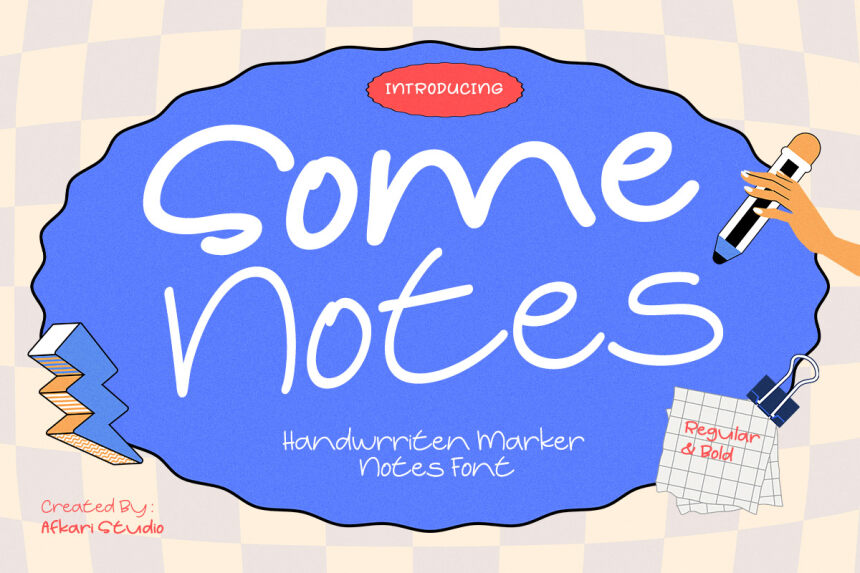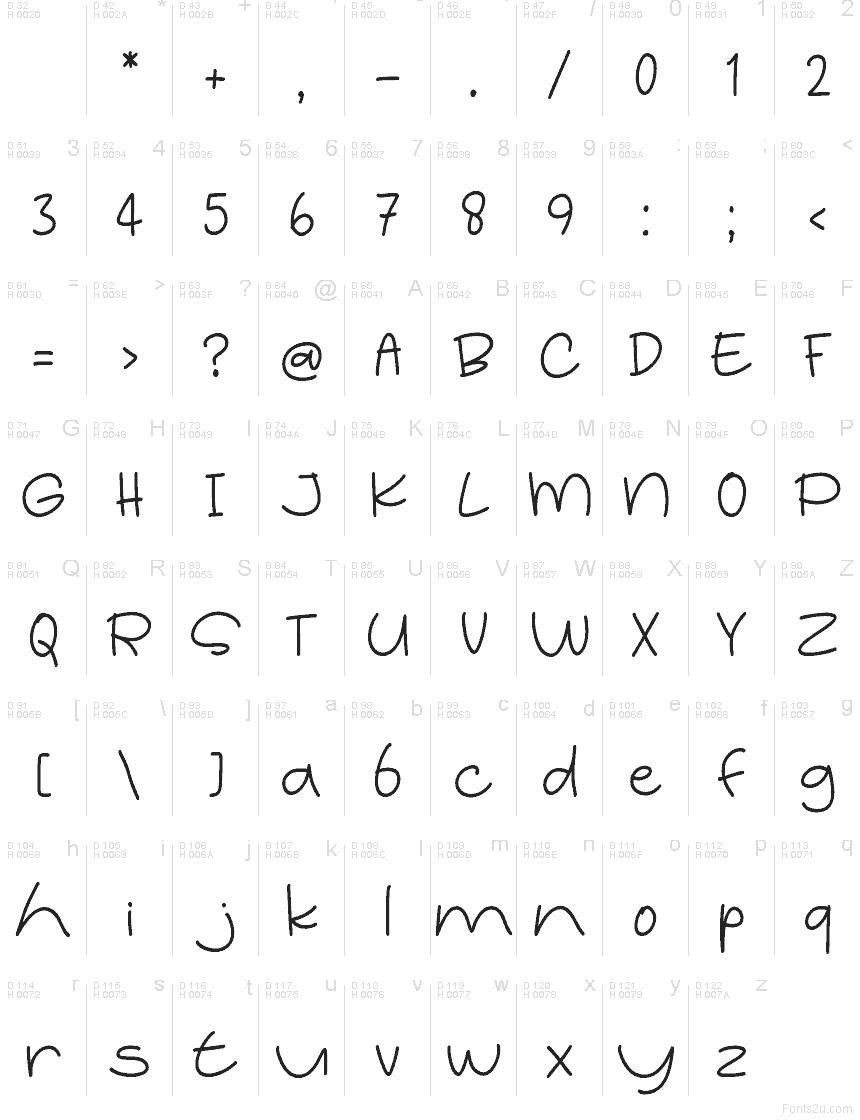
Some Notes Regular by Afkari Studio is a free handwritten font with the loose, one-stroke feel of a quick marker note. The letters lean on broad rounded curves and long rising strokes, giving the line a casual rhythm that feels personal rather than polished.